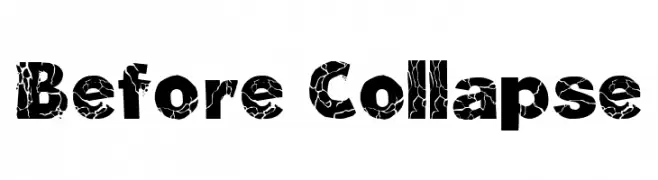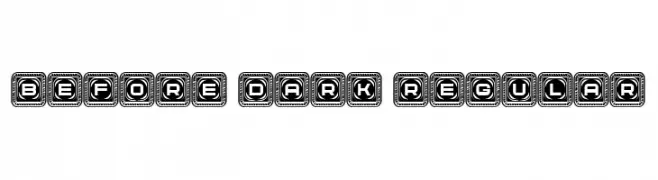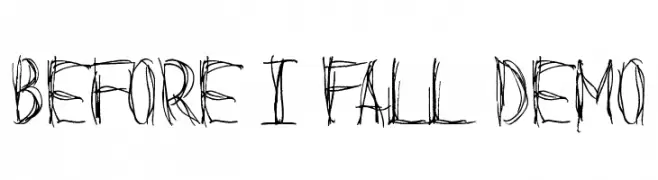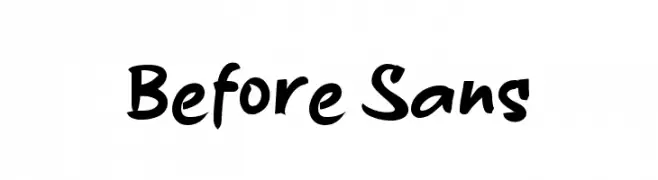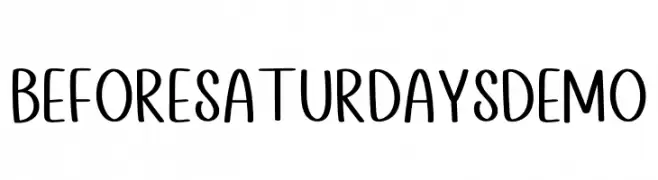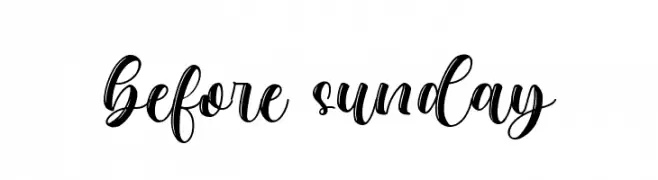
A bold, distressed font with a cracked texture, perfect for gritty designs.
A bold, distressed font with a cracked texture for an edgy look.
A bold, decorative font with a retro, block-like style and enclosed characters.
A hand-drawn, expressive font with a sketch-like, graffiti-inspired style.
A decorative, bold font with characters enclosed in patterned square frames, offering a vintage yet modern look.
A bold, dynamic script font with a handwritten style.
A bold, handwritten-style font with dynamic and expressive strokes.
A playful and elegant script font with a handwritten touch.
A playful, handwritten font with rounded edges and consistent height.
A lively and elegant script font with flowing, cursive letterforms.